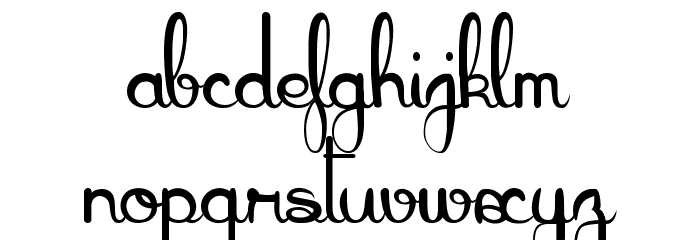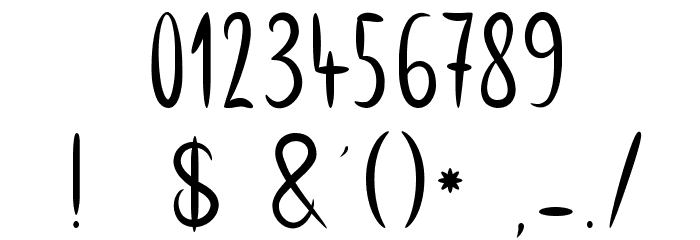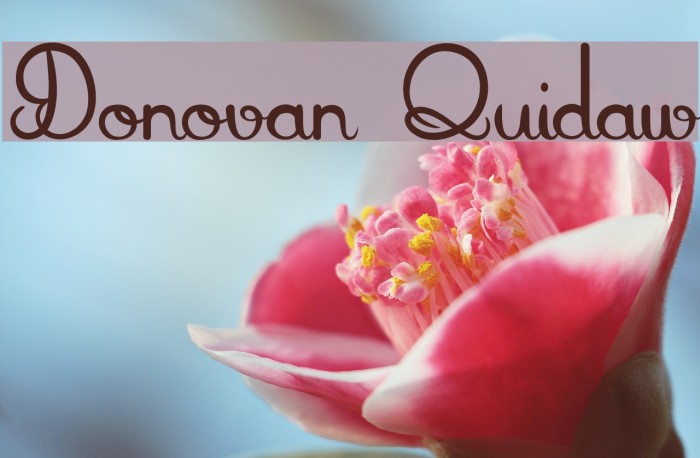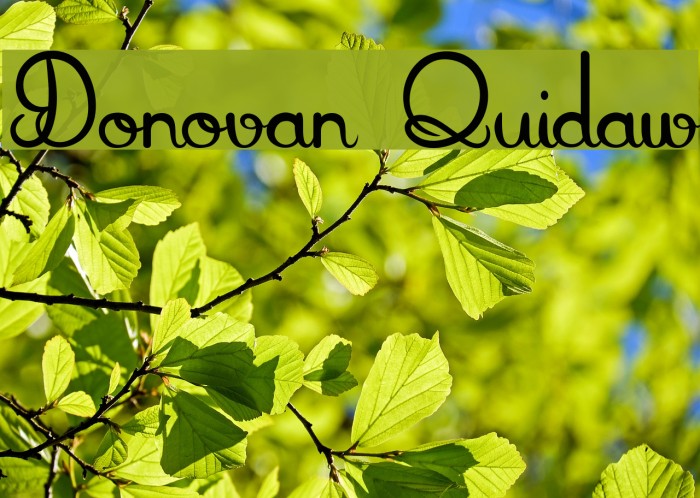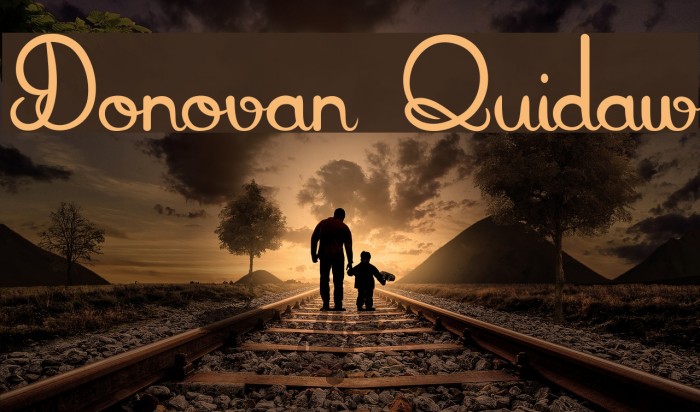
Donovan Quidaw Font
This font features an elegant and decorative style with intricate swirls and loops, particularly noticeable in the uppercase letters. The lowercase letters maintain a more streamlined and cursive appearance, providing a nice contrast to the ornate uppercase. The numbers are bold and slightly elongated, maintaining the decorative theme. Special characters are uniquely styled, adding to the overall artistic feel. This font combines a sense of whimsy with sophistication, making it suitable for creative and formal applications alike.
An elegant and decorative font with intricate swirls and loops.
- Proposed Projects: Ideal for wedding invitations, greeting cards, branding projects, and decorative posters.
- Use Case: Logos, Invitations, Decorative Text